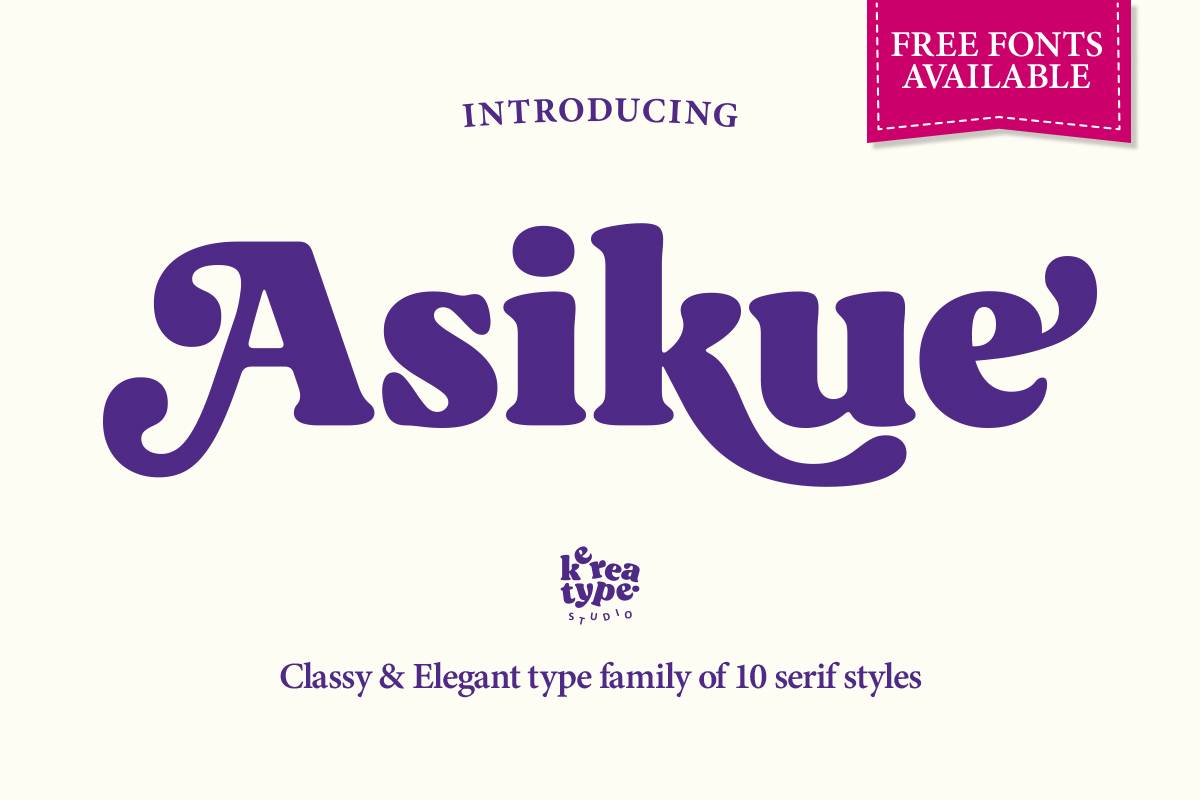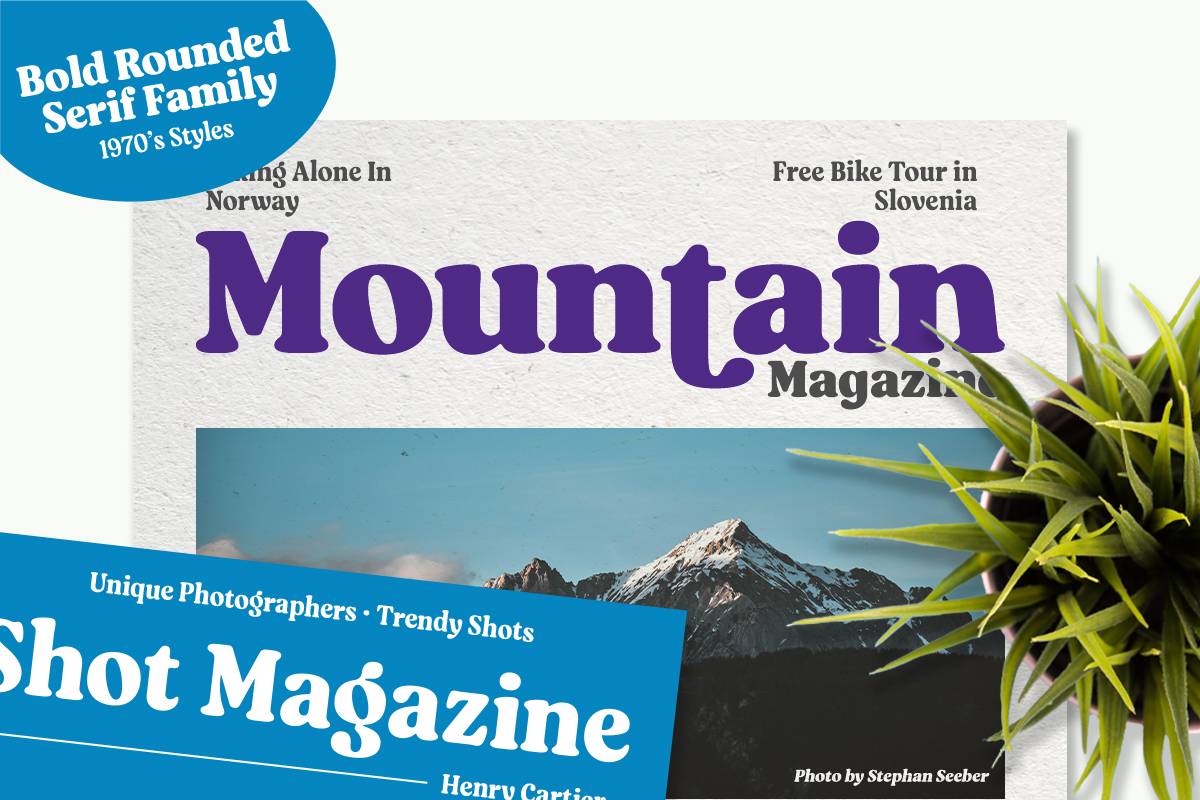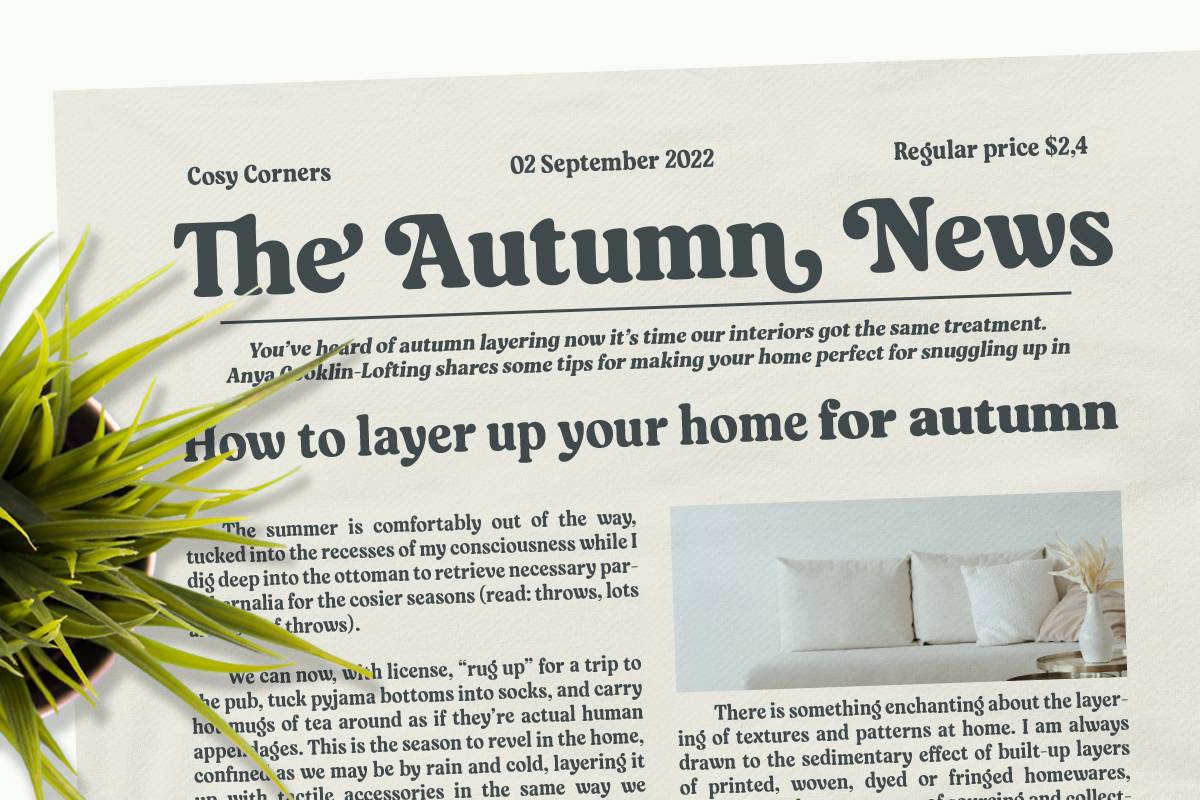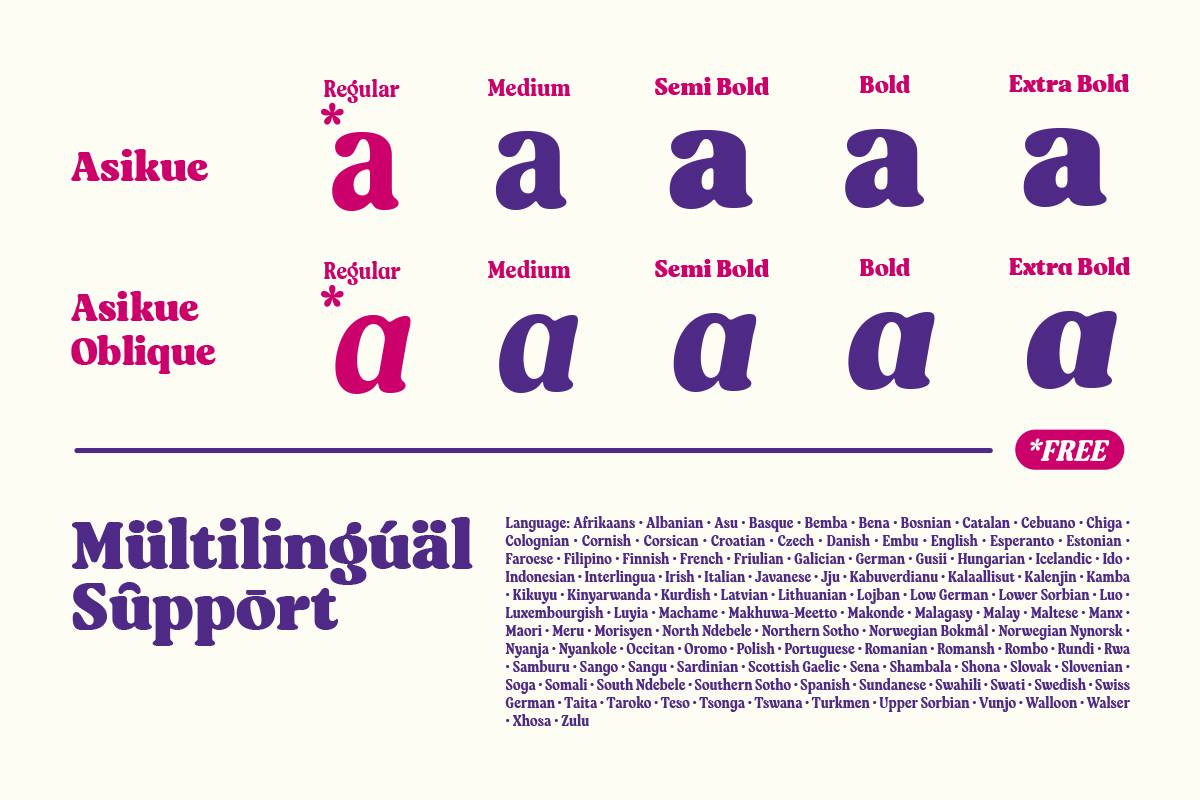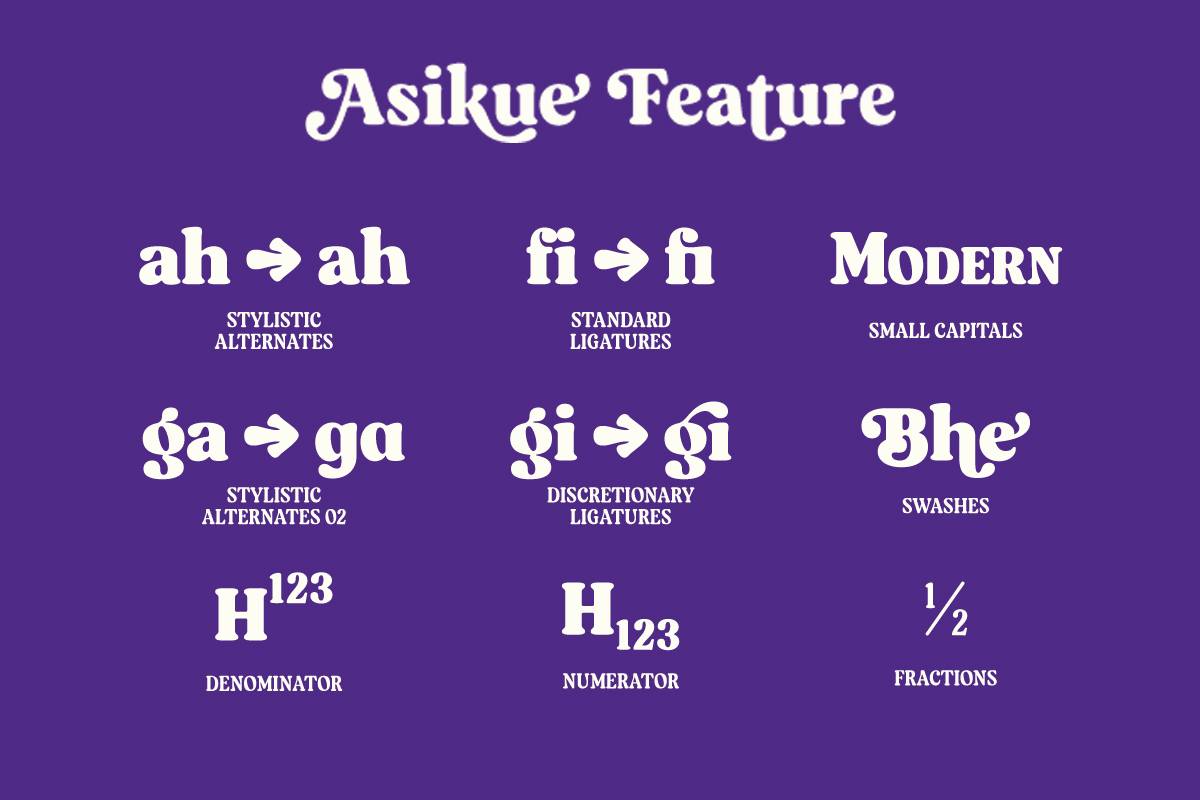
Asikue is a bold slab serif font with a strong and friendly character, featuring thick, rounded serifs and high stroke contrast that add a touch of vintage charm. Its well-balanced letterforms and moderate x-height make it ideal for impactful headlines, logos, and branding that require a classic yet approachable feel. This font works especially well in fashion, editorial, and packaging designs where a bold statement with a warm personality is desired.
Asikue Font
About Asikue Font
| Font family | Asikue Font |
| Designer | Amal Yusuf |